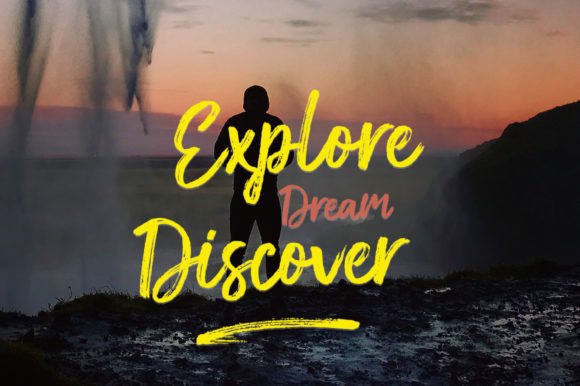
Rodista is a cool and modern handwritten brush font. Whether you’re using it for crafts, digital design, presentations, or making greeting cards, this font has the potential to become your favorite go-to font, no matter the occasion!
Rodista Font